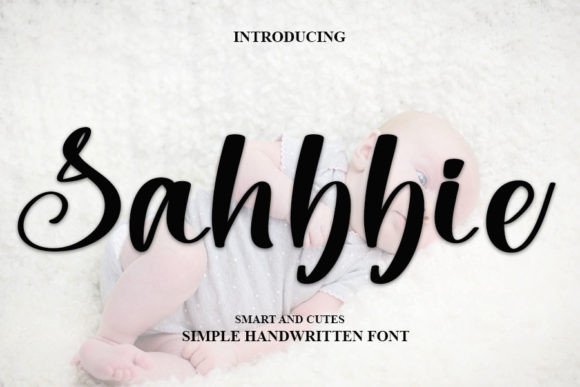
Introducing Sahbbie Font, the epitome of contemporary elegance, where classic calligraphy meets modern design sensibilities. This mesmerizing script font, crafted by the esteemed Inermedia STUDIO, is more than just a font; it's an expression of creativity, artistry, and timeless beauty.
Immerse yourself in the world of Sahbbie, where impeccable form dances harmoniously with trendy handwritten strokes. Its graceful curves and elegant lines exude an aura of sophistication that will transform your designs into masterpieces. Say goodbye to ordinary typography and embrace the allure of Sahbbie, the font that turns your digital creations into captivating works of art.
With Sahbbie, you'll discover a font that seamlessly adapts to the dynamic world of mobile design. Its carefully crafted characters, optimized for small screens, ensure that your designs shine on smartphones, tablets, and all other digital devices. Captivate your audience with Sahbbie's captivating presence, making your mobile creations stand out from the crowd.
Whether you're a seasoned designer or just starting your creative journey, Sahbbie is your perfect companion. Its user-friendly nature makes it accessible to all, while its versatility empowers you to explore endless design possibilities. Unleash your imagination and let Sahbbie guide you towards creating designs that resonate with your audience, leaving a lasting impression that lingers in their minds.
So, embark on this creative expedition with Sahbbie Font, and let your designs blossom into stunning expressions of artistry. Immerse yourself in the fusion of classic elegance and contemporary charm, and unlock the true potential of your digital creations. Sahbbie is not just a font; it's an experience that will transform your designs and captivate your audience's hearts.